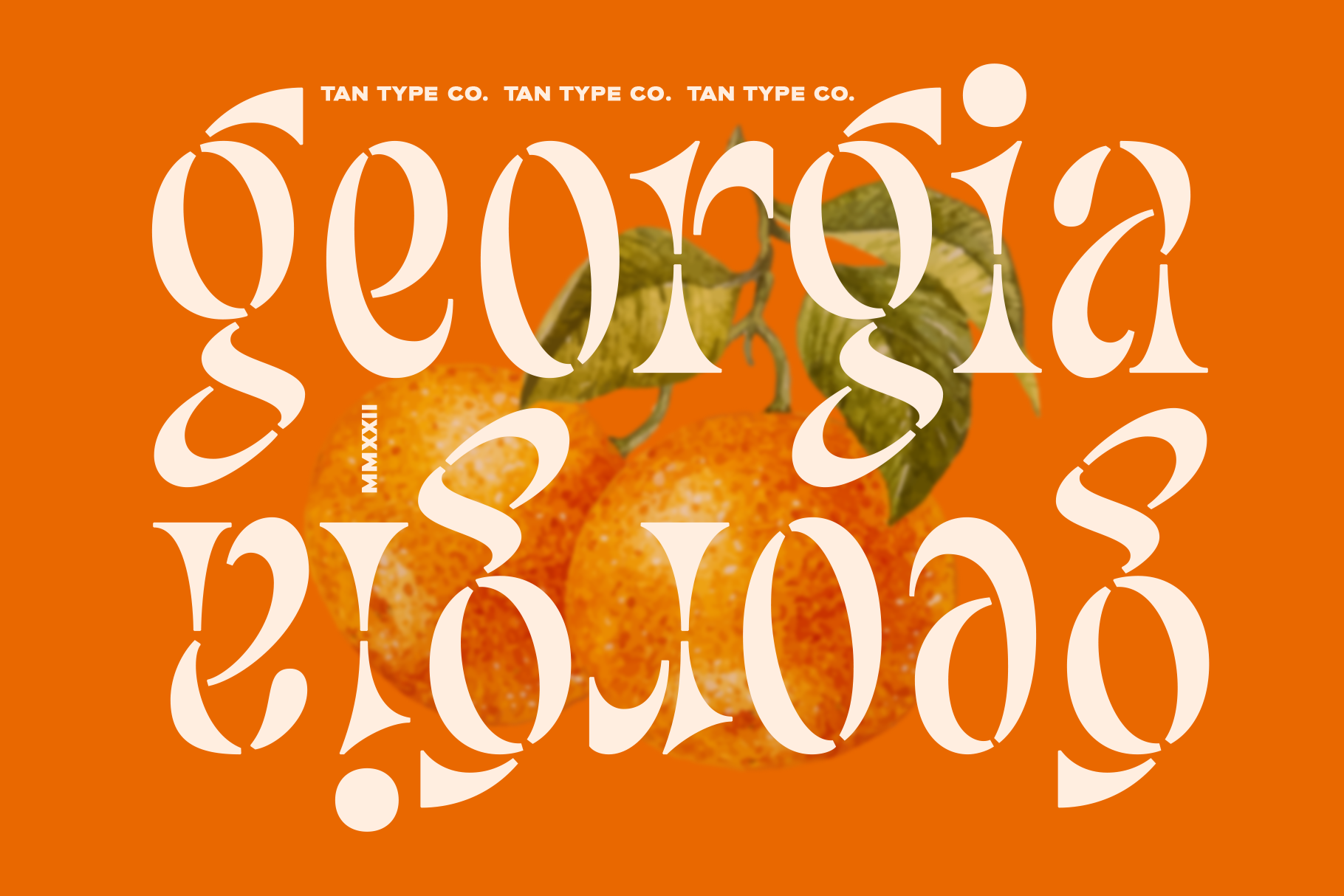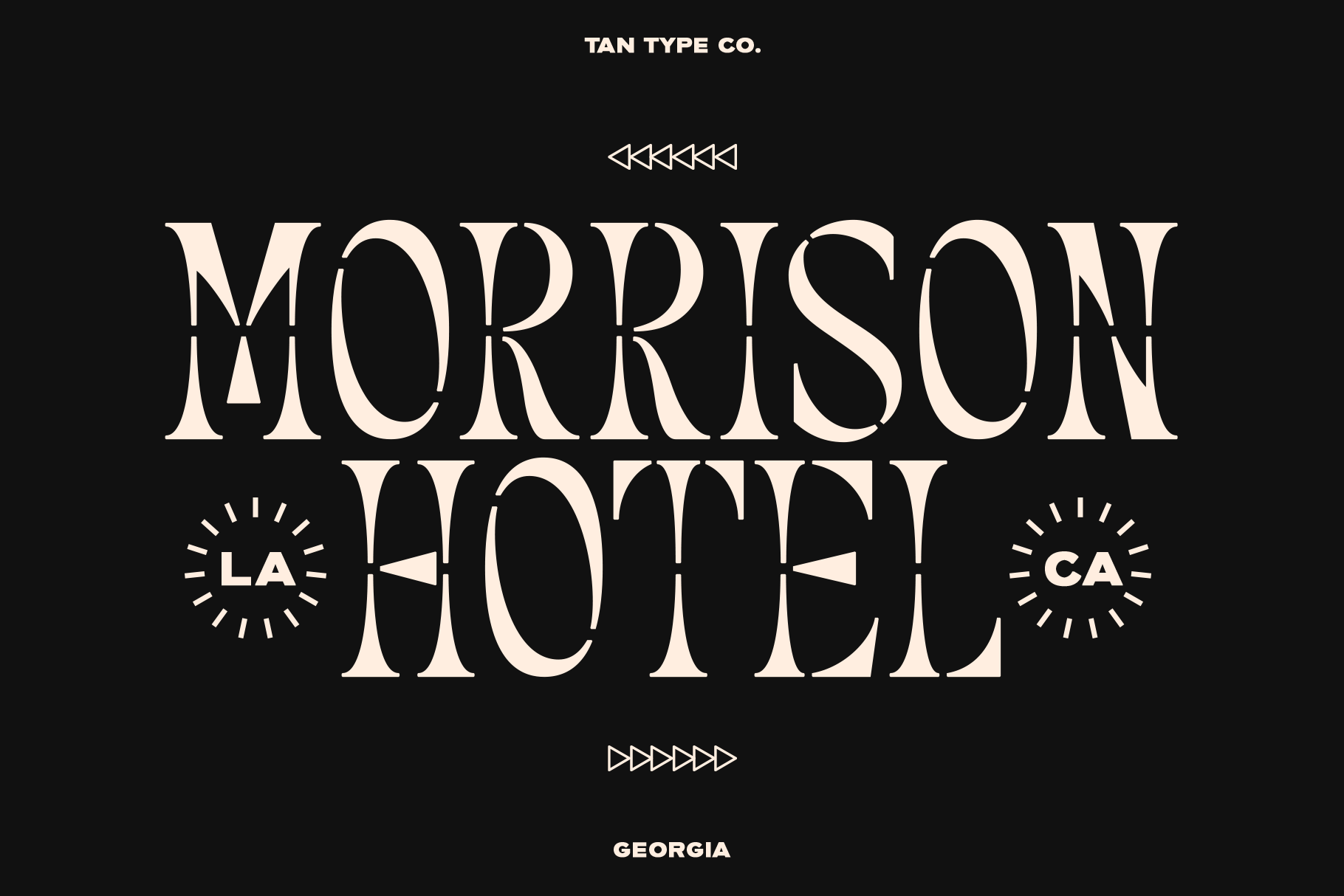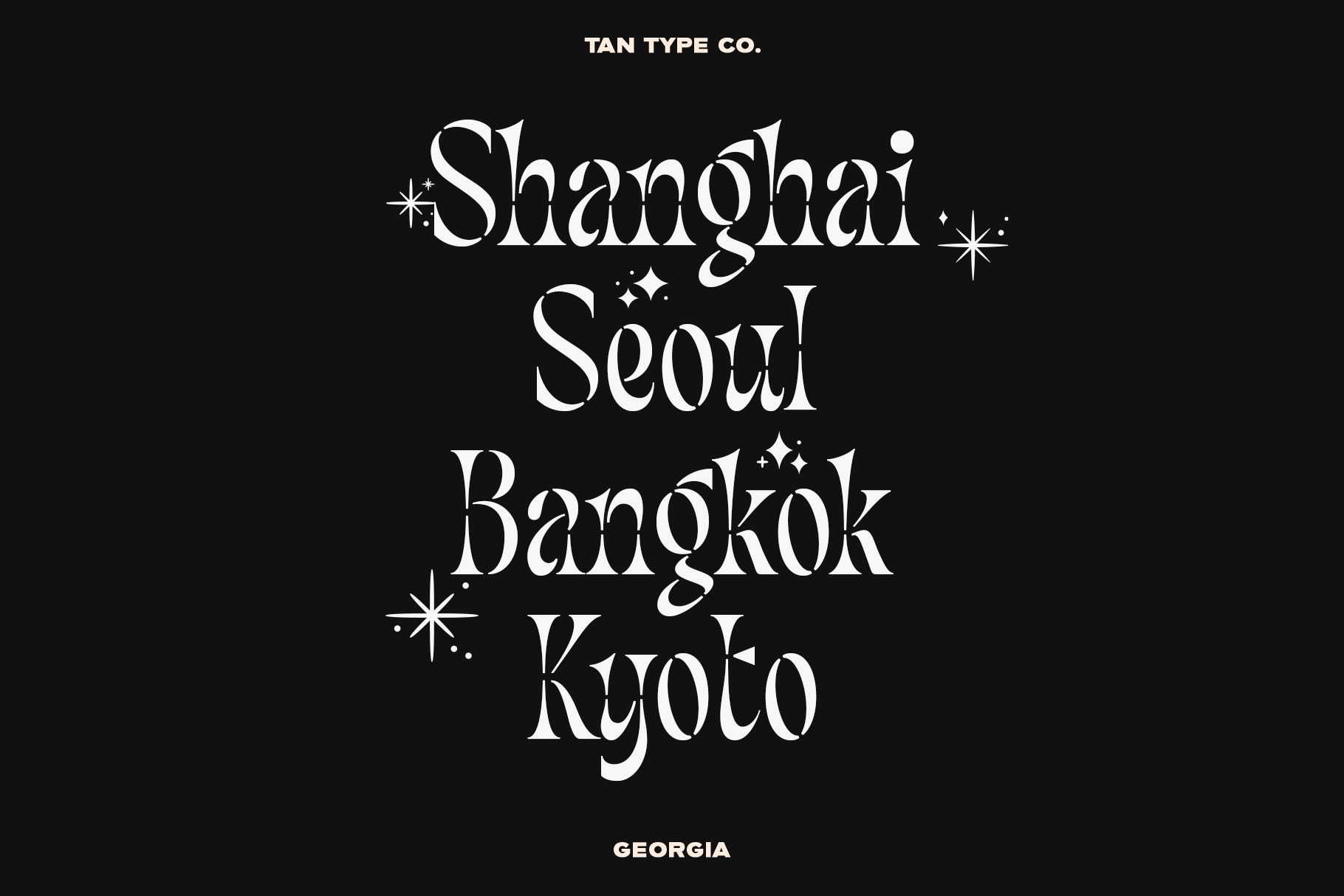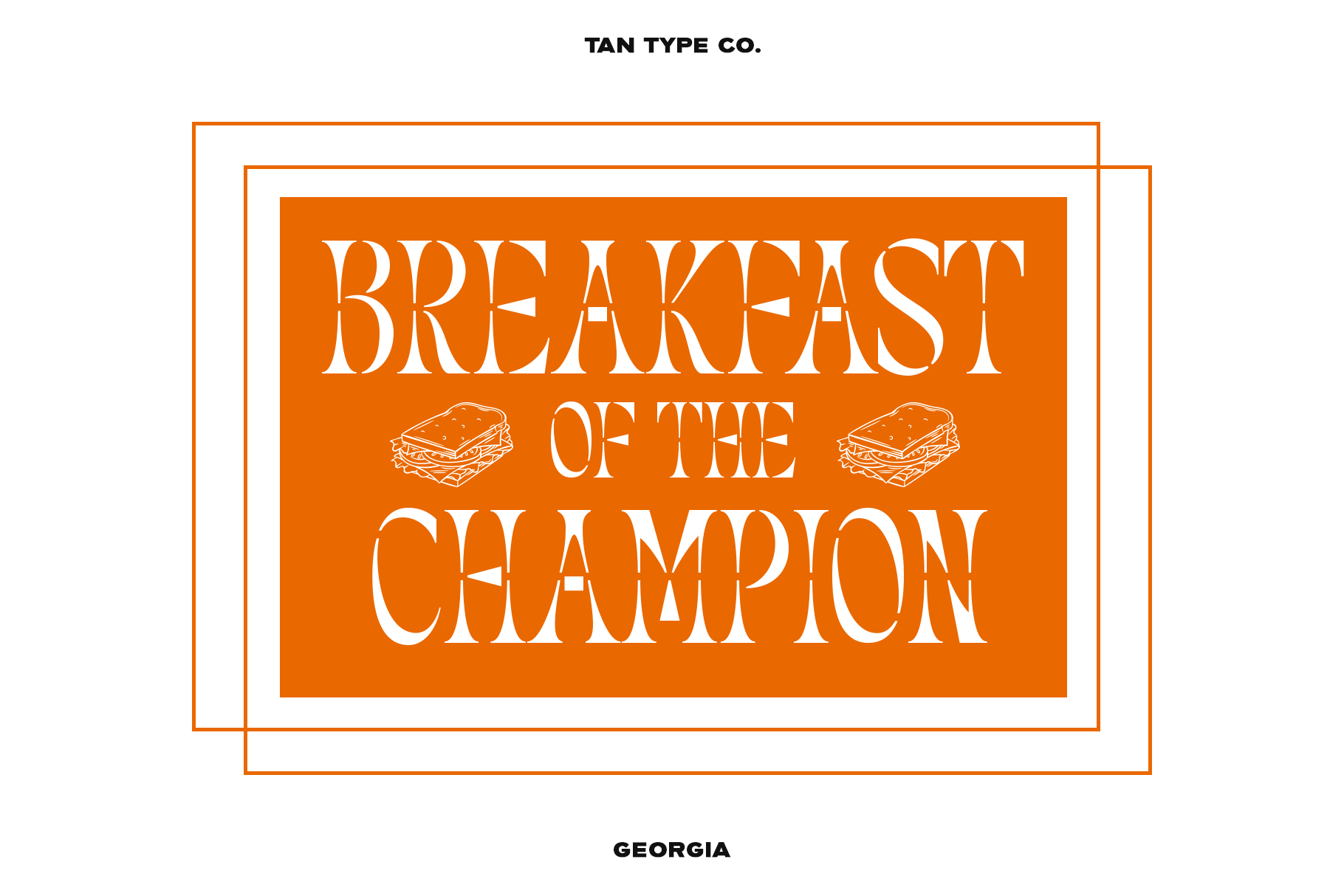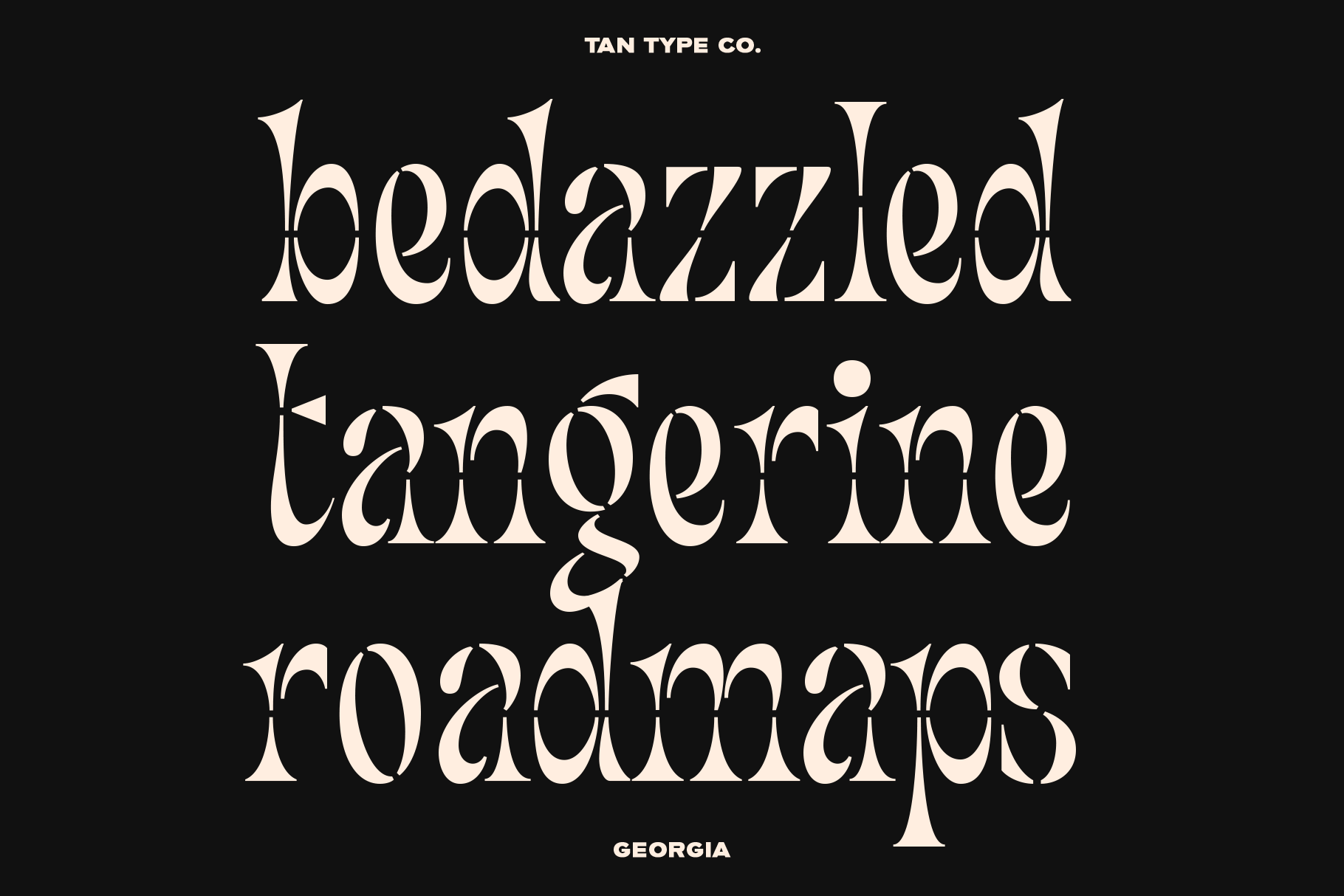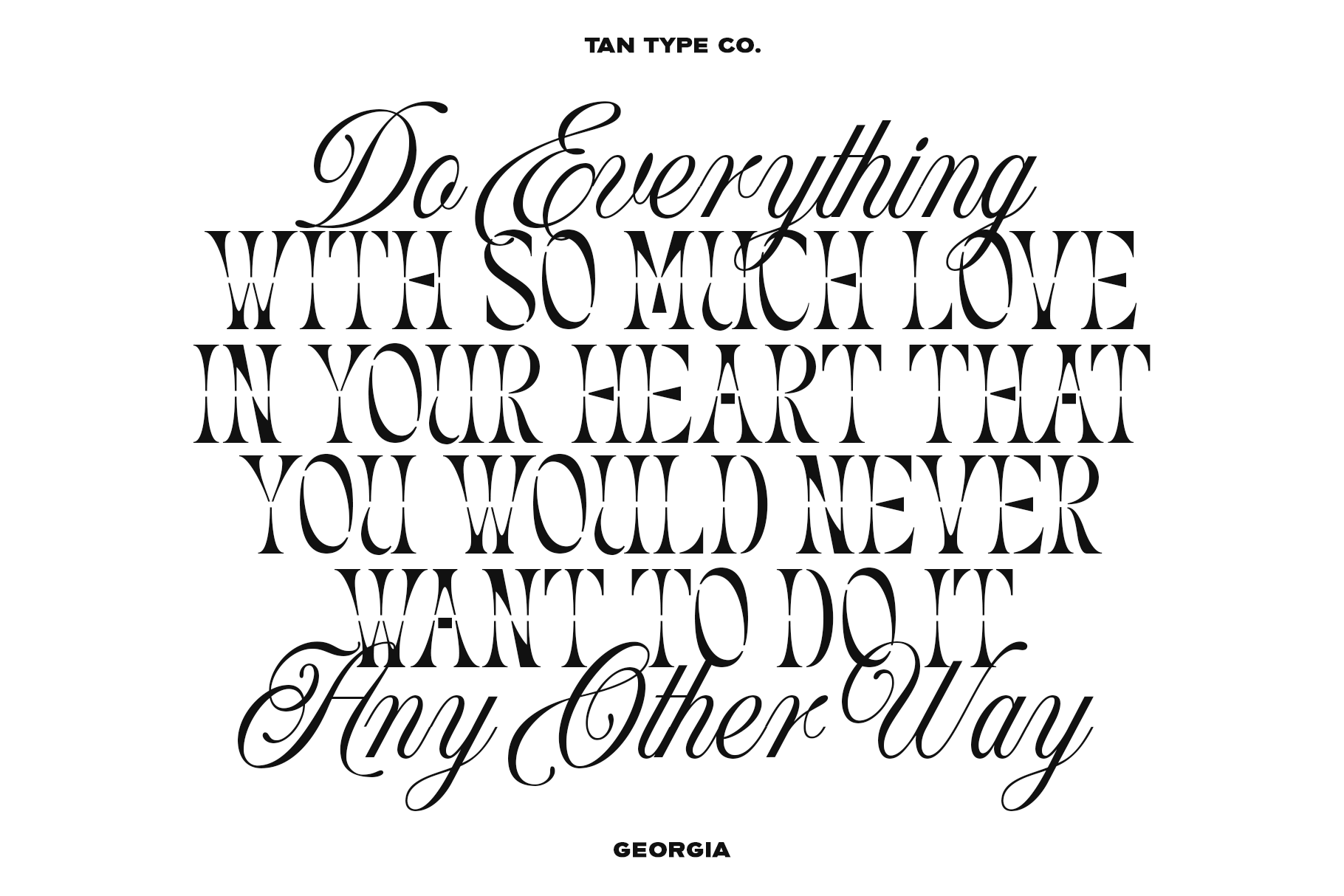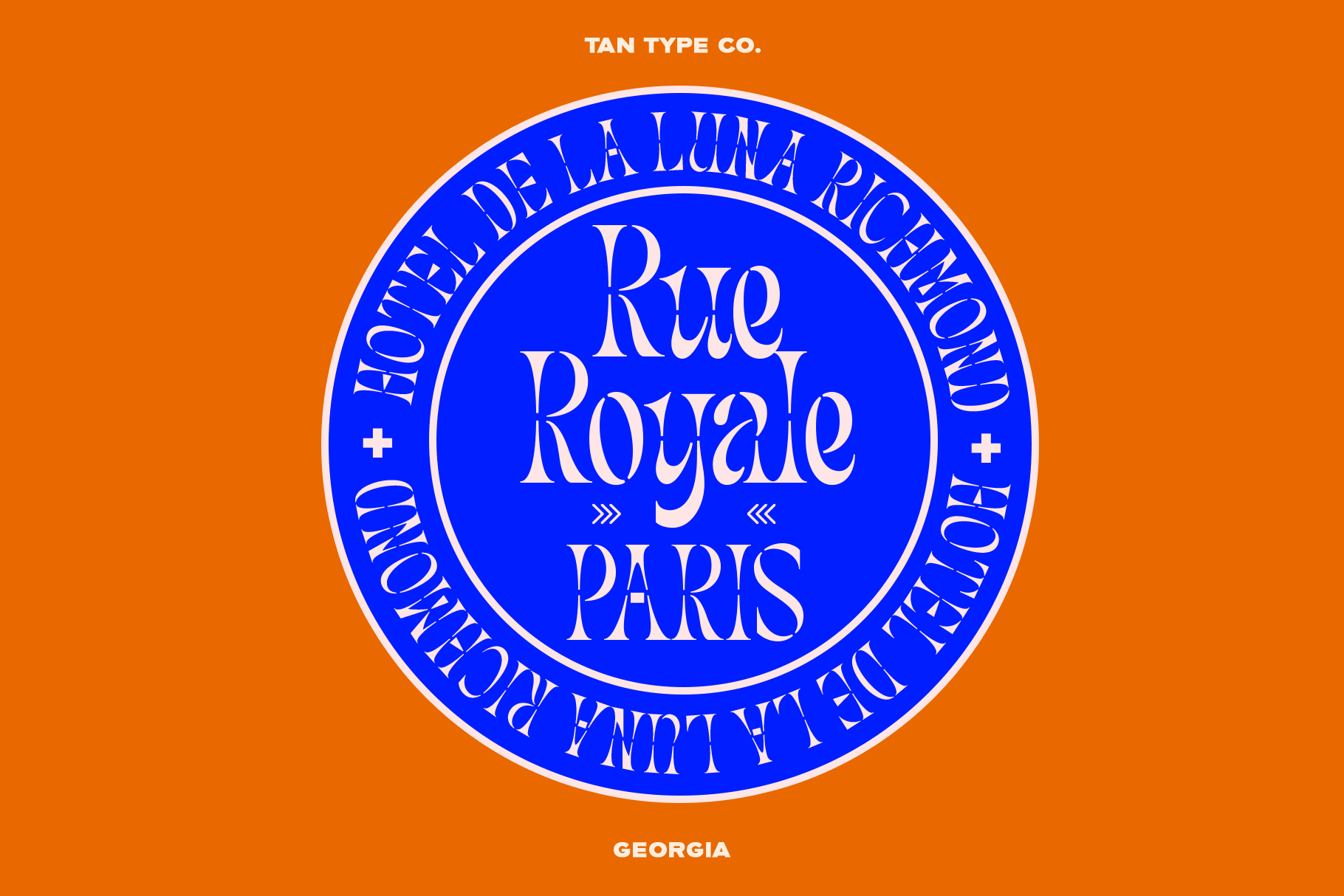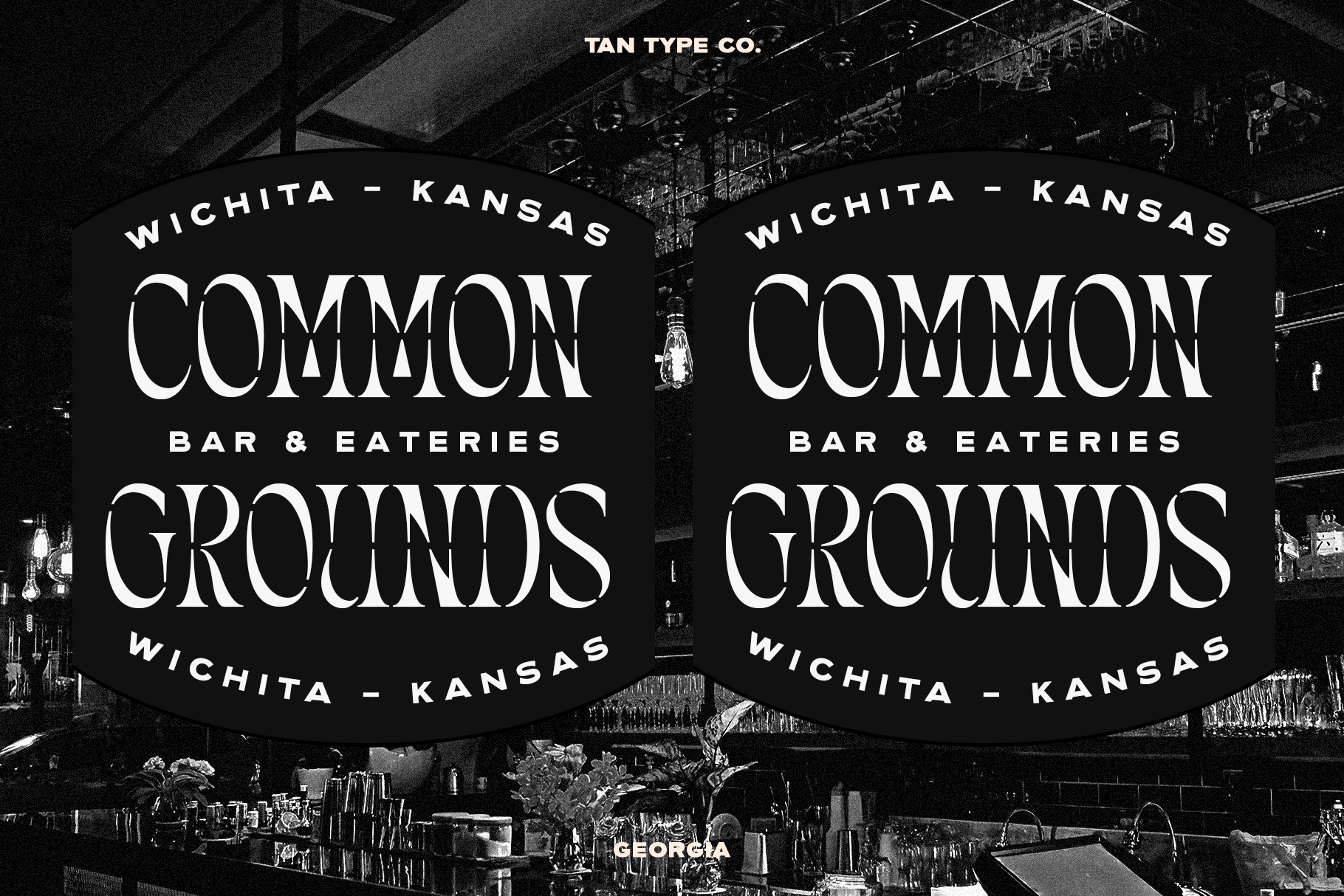
GEORGIA is a bold and expressive display serif typeface with dramatic contrast and sculptural forms. Its exaggerated terminals and distinctive curves give it a playful yet sophisticated energy, fusing classic serif structure with a striking, contemporary twist.